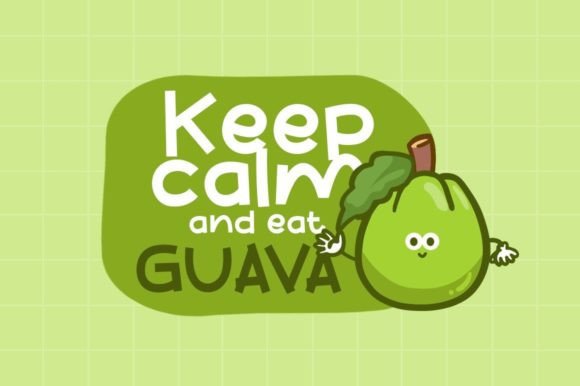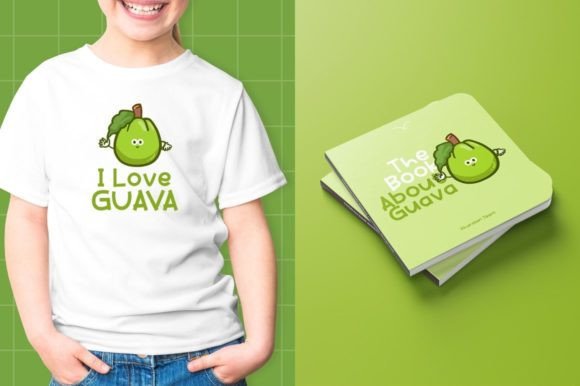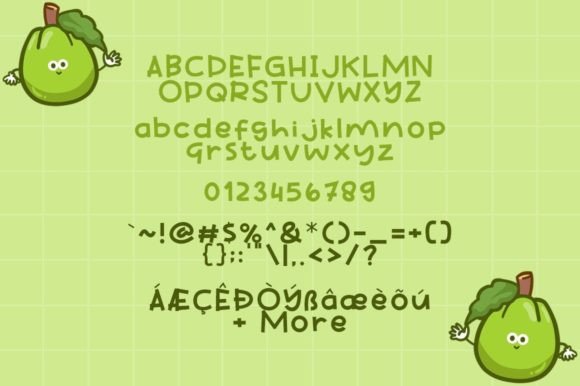
Introducing Guava Days Font: The Ultimate Playful Display Font
Are you tired of using the same old fonts for your designs? Do you want to add a playful touch to your creations? Look no further than Guava Days Font! This fun and cool display font is perfect for cartoon-related designs, children’s games, and any project that requires a dash of whimsy. In this article, we’ll dive into the features and benefits of Guava Days Font, and explore how it can elevate your designs to the next level.
What is Guava Days Font?
Guava Days Font is a unique and eye-catching display font that’s designed to add a playful touch to your designs. With its bold and colorful aesthetic, this font is sure to grab attention and make your creations stand out. Whether you’re a designer, crafter, or DIY enthusiast, Guava Days Font is the perfect choice for anyone looking to add some fun and personality to their projects.
Key Features of Guava Days Font
- Playful and Whimsical Design: Guava Days Font features a playful and whimsical design that’s perfect for cartoon-related designs, children’s games, and other projects that require a fun and youthful touch.
- Bold and Colorful Aesthetic: This font features a bold and colorful aesthetic that’s sure to grab attention and make your designs stand out.
- Easy to Read and Understand: Despite its playful design, Guava Days Font is easy to read and understand, making it perfect for use in a variety of projects, from titles and headings to body text.
- Highly Versatile: Guava Days Font is highly versatile and can be used in a wide range of projects, from digital designs to print materials.
Benefits of Using Guava Days Font
- Adds a Playful Touch: Guava Days Font adds a playful touch to your designs, making them more engaging and fun to look at.
- Perfect for Cartoon-Related Designs: This font is perfect for cartoon-related designs, children’s games, and other projects that require a fun and youthful touch.
- High-Quality Design: This font features a high-quality design that’s sure to impress your clients and audience.
Creative Ways to Use Guava Days Font
- Children’s Book Titles: Use Guava Days Font to create eye-catching titles for children’s books, activity books, and other kids’ publications.
- Cartoon-Related Designs: This font is perfect for cartoon-related designs, such as character logos, posters, and merchandise.
- Game Titles and Tags: Use Guava Days Font to create bold and colorful titles and tags for games, apps, and other digital products.
- Crafting and DIY Projects: Add a playful touch to your crafting and DIY projects, such as party decorations, gift tags, and scrapbook pages.